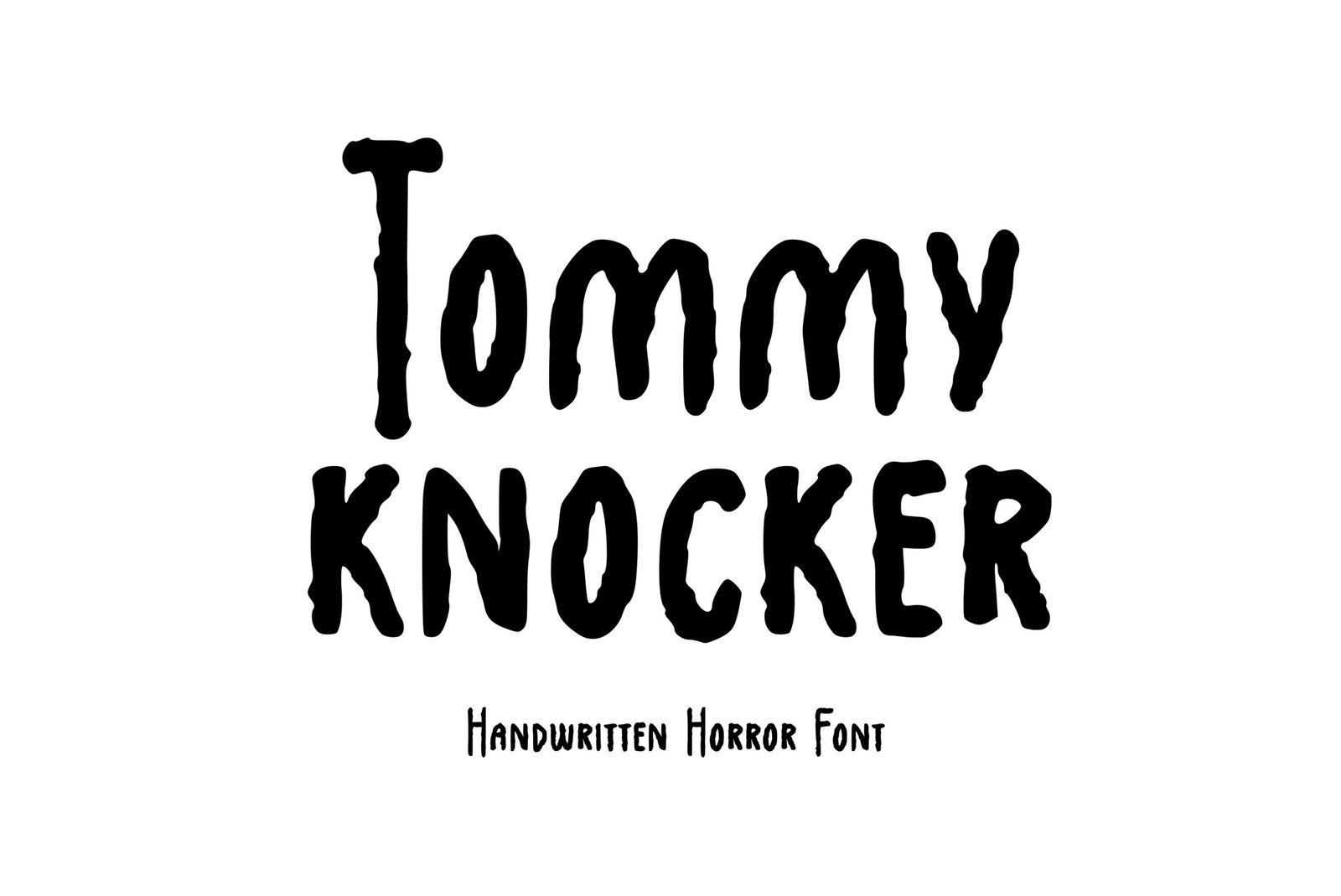
Tommy Knocker Font
Handwritten horror font. “Tommy Knocker”. Perfect for advertising and display purposes, including banners, book covers, shirts, posters, logos and much more!
This is an ALL CAPS font, featuring numbers, characters, and punctuation.